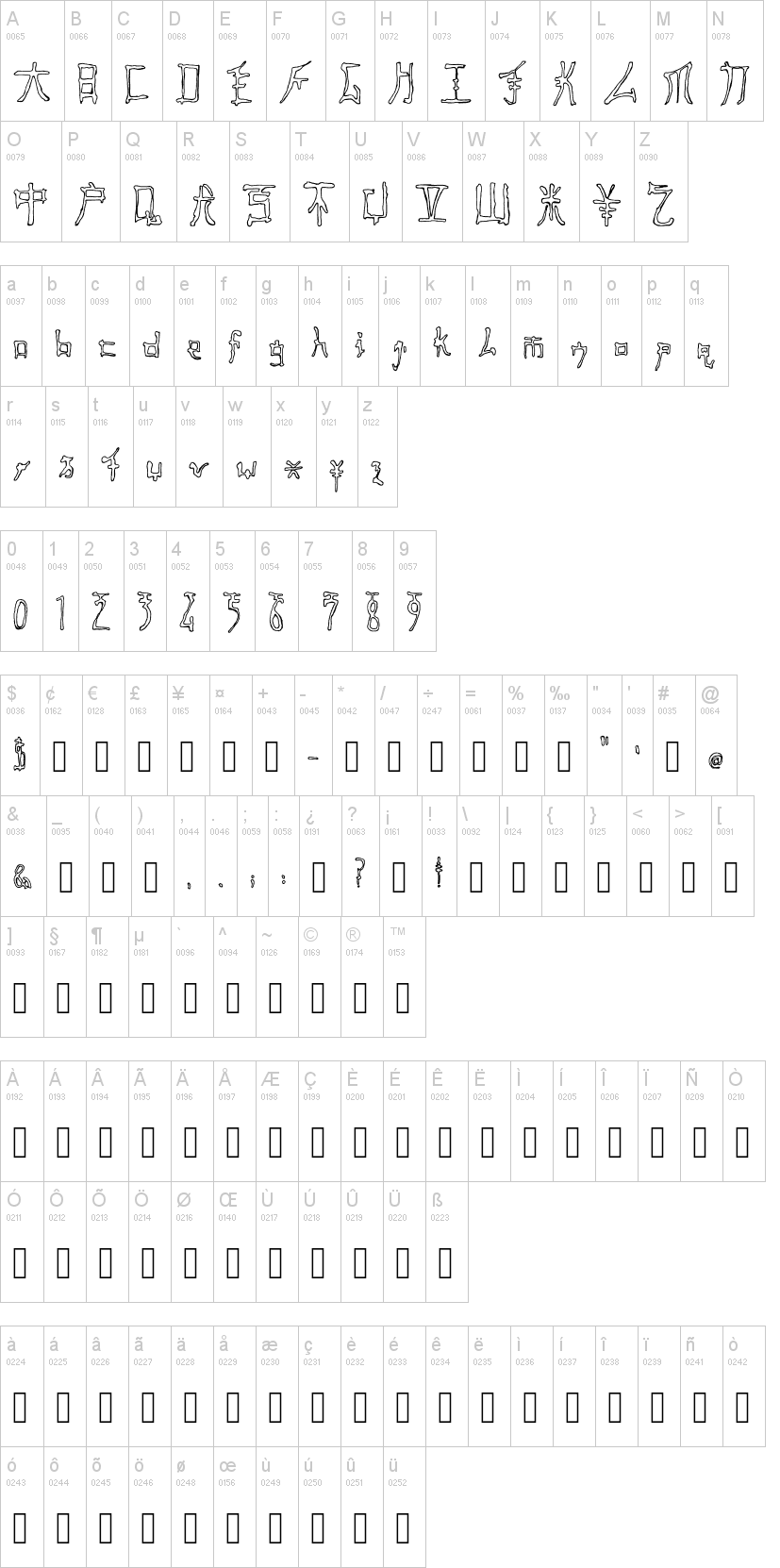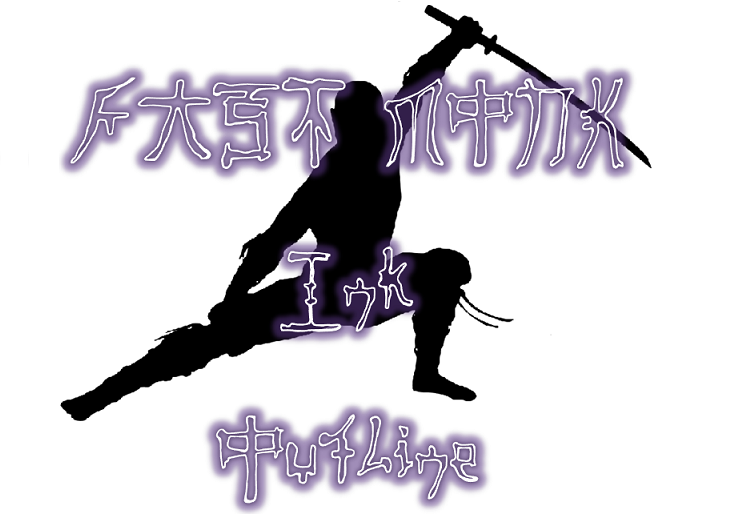
Note of the authorFast Monk Ink *OUTLINE* was inspired by Chinese characters. The image to illustrate it, is by Mohamed Hassan at Pixabay. If you want to use this font for commercial purposes, it costs 99c at https://www.creativefabrica.com/designer/shelley-2/